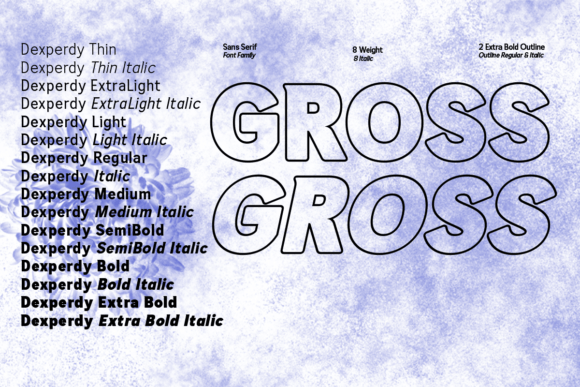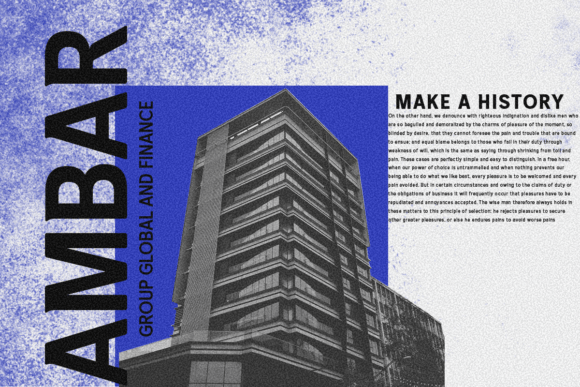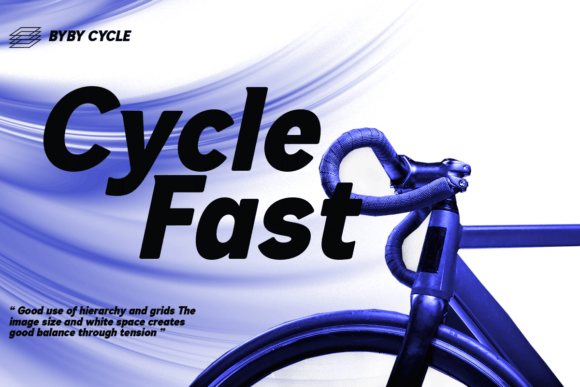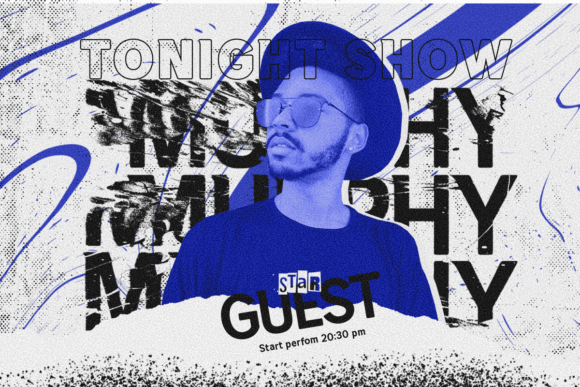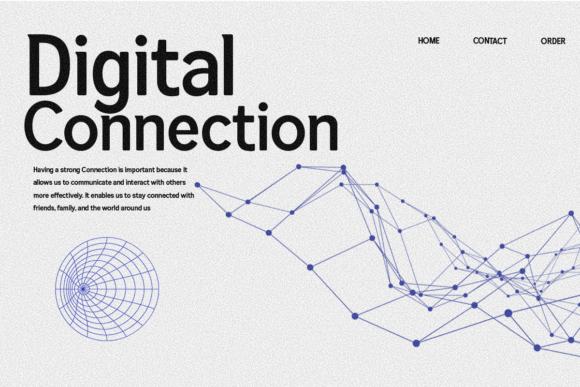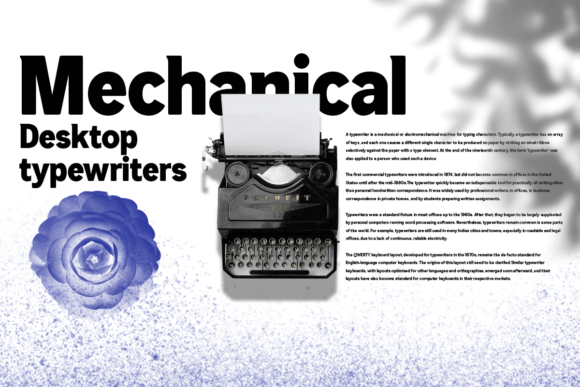
Discover the Elegance of Dexperdy Font: A Modern Sans Serif Marvel
In the realm of typography, few fonts manage to strike a balance between minimalism and expressiveness as effortlessly as Dexperdy. This modern sans serif font collection has been turning heads with its clean lines, nuanced curves, and an impressive range of weights. Whether you’re a designer looking for the perfect typeface for your next project or a crafty individual seeking a unique font for your creative endeavors, Dexperdy is sure to captivate you with its uniquely minimalist allure.
The Dexperdy Difference: Unparalleled Versatility
What sets Dexperdy apart from other font families is its incredible versatility. Comprising eight distinct weights, from the ethereal lightness of Thin to the assertive strength of Extra Bold, Dexperdy offers designers an unparalleled range of creative possibilities. This extensive weight range ensures that Dexperdy can be effectively used across a multitude of design applications. Whether you’re crafting dynamic titles that demand attention, designing striking logos that need to make a lasting impression, or working on impactful editorial projects that require both elegance and readability, Dexperdy is perfectly equipped to meet your typographic needs.
Blending Strength and Subtlety
One of the most compelling aspects of Dexperdy is its ability to effortlessly blend strength and subtlety. The clean lines and minimalist aesthetic of this font family exude a sense of modernity and sophistication, making it an ideal choice for designers who appreciate simplicity and elegance. At the same time, the nuanced curves and varying weights of Dexperdy add a layer of depth and expressiveness, allowing designers to convey a wide range of emotions and messages through their typography. This delicate balance of strength and subtlety is what makes Dexperdy a font family that can leave a lasting impression on its audience.
Design Applications of Dexperdy
The versatility of Dexperdy makes it suitable for a wide array of design applications. Here are a few examples of how this incredible font family can be utilized:
- Dynamic Titles: Use the lighter weights of Dexperdy, such as Thin or Light, to create elegant and eye-catching titles for magazines, blogs, or websites.
- Striking Logos: The bolder weights of Dexperdy, like Bold or Extra Bold, are perfect for crafting striking logos that command attention and convey strength.
- Impactful Editorial Work: For editorial projects, such as newspapers, articles, or books, the medium weights of Dexperdy offer excellent readability and aesthetic appeal.
- Digital and Print Media: Dexperdy’s clear and clean design makes it highly legible in both digital and print media, ensuring your message is communicated effectively across various platforms.
Why Choose Dexperdy?
In a world where typography plays a crucial role in communication and branding, choosing the right font can make all the difference. Here are a few reasons why Dexperdy stands out as a top choice for designers and crafters:
- Modern Aesthetic: Dexperdy offers a refreshingly modern aesthetic that can elevate the visual appeal of any project.
- High Versatility: With eight weights to choose from, Dexperdy provides the flexibility needed to tackle a wide range of design challenges.
- Ease of Use: Despite its sophisticated look, Dexperdy remains easy to read and use, making it a practical choice for both digital and print projects.
- Unique Appeal: The distinctive minimalist allure of Dexperdy ensures that your designs stand out in a crowded visual landscape.
Dexperdy is more than just a font family; it’s a design tool that offers a perfect blend of modernity, versatility, and expressiveness. Its clean lines, nuanced curves, and extensive range of weights make it an invaluable asset for designers and crafters looking to create impactful and memorable designs. Whether you’re working on a dynamic title, a striking logo, or an editorial project, Dexperdy provides the elegance and flexibility needed to bring your creative vision to life. Experience the uniquely minimalist allure of Dexperdy today and discover how this modern sans serif font collection can elevate your designs to new heights.